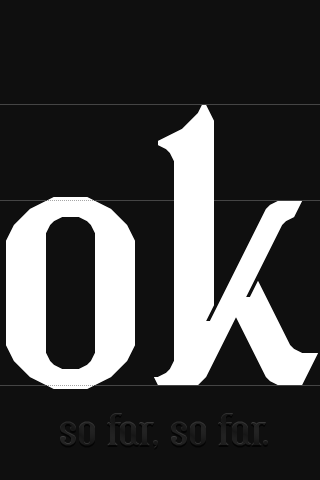
• This fontstruction was started because I suddenly got fascinated by triangles in Emigre's Matrix font. The triangles got lost somewhere along the development...leaving this hodgepodge of serifs. Look closely, almost all the serifs are different. The question is, which works the best? That's where you come in. Help me decide how to proceed.
Usually, when it happens to me (pretty often I would say), I clone the font an try to develop each separate version according its own model. Then I don’t finish either one… ;-)
Anyway, I think that the serif (more the whole straight terminal) on 'e' doesn’t work. Also the lower left serif on 'i' (while the upper left one is very nice).
Beautiful, hope to see it finished soon! (Don't really know what else to say, except that I like the second k better which you used in the sample.)
fantastic look forward to seeing it finished
The 'k' is gorgeous, as is the 'g' (although I quite like the 'g' 2nd from the left - used in the 1st sample). I also like the little upward flip on the bottom serifs (on the 'h', 'i', 'n' in first sample).
A great design in the making.
Very cool!
This can be tweaked endlessly, but it is essentially done. *whew*
Inktraps, overshoots. A very difficult fontstruction, no wonder you've spent so much effort on this. Awesome result in the end!
You display your indepth knowledge of typeface design here... Ascenders and descenders are awesome. I wasn't so sure about the t first but the longer you at it in context the more sense it makes! Needless to say: 10/10
An impressive project!
Ata is working on non-modular readable typefaces. This is a good thing! Critiques: The lowercase t is unexpected. It is interesting how ligatures are automatically formed in some instances. The T seems a bit wide and the width spacing on its right is tucked in too much. The left foot of the N seems to be a little anemic when juxtaposed with the thicker serifs of other capital letters. I do like the fusion of styles that you've incorporated and hope you develop more text based typefaces. Its a pleasure to see your continued activity here.